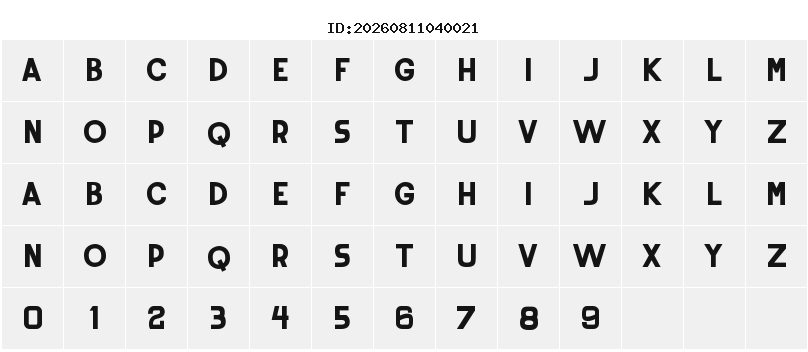
Rounded Sans Preview
• Font Name: Rounded Sans
• Full Font Name: Rounded Sans
• Version: Version 1.00 August 25, 2014, initial release
About Rounded Sans.ttf
Rounded Sans.ttf is a modern, elegant sans-serif font designed for ultimate readability and visual harmony. Perfect for branding, headlines, web design, and print materials.